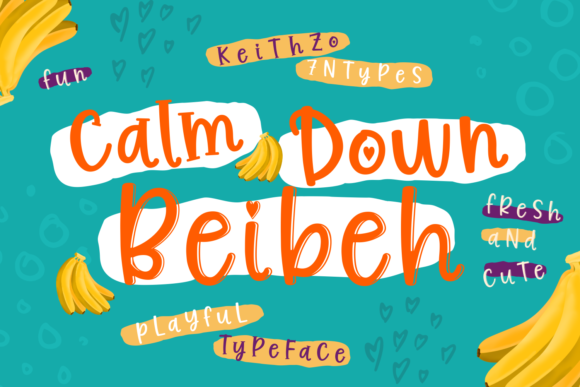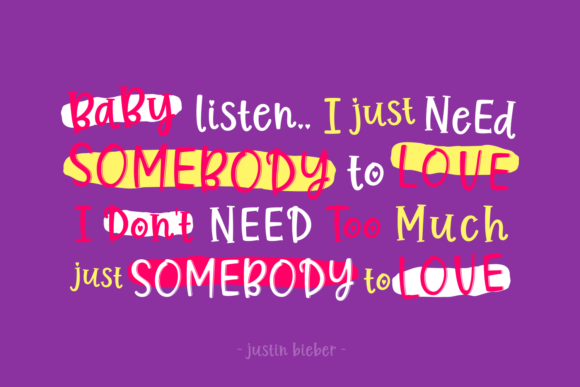
Calm Down Beibeh Font
About Calm Down Beibeh Font
The Calm Down Beibeh typeface is a super playful font that comes with 3 styles packed in 1 font (the PUA encoded characters contain 2 variants of each letter of the alphabet).
Calm Down Beibeh is a font that works perfect for creating fun, hip designs that will draw attention. Great for instagram or Facebook posts, blog post headlines or product packaging.